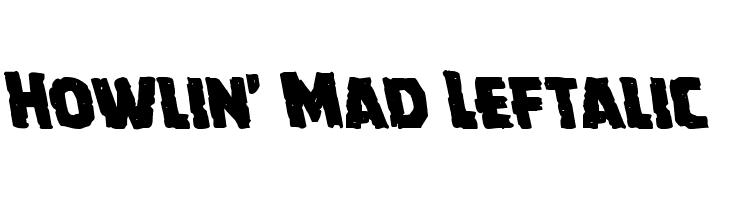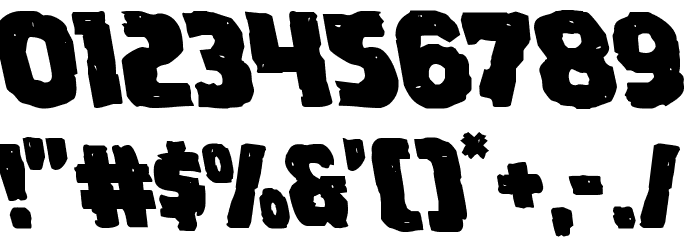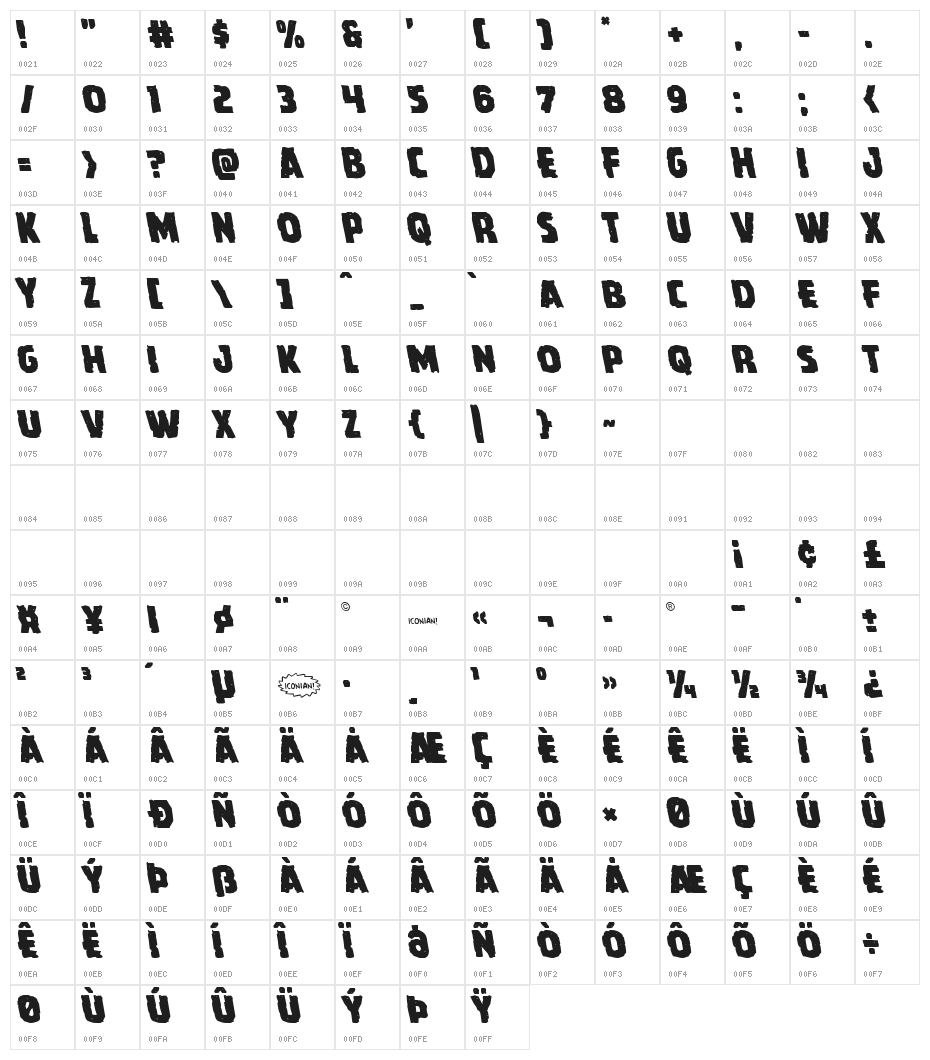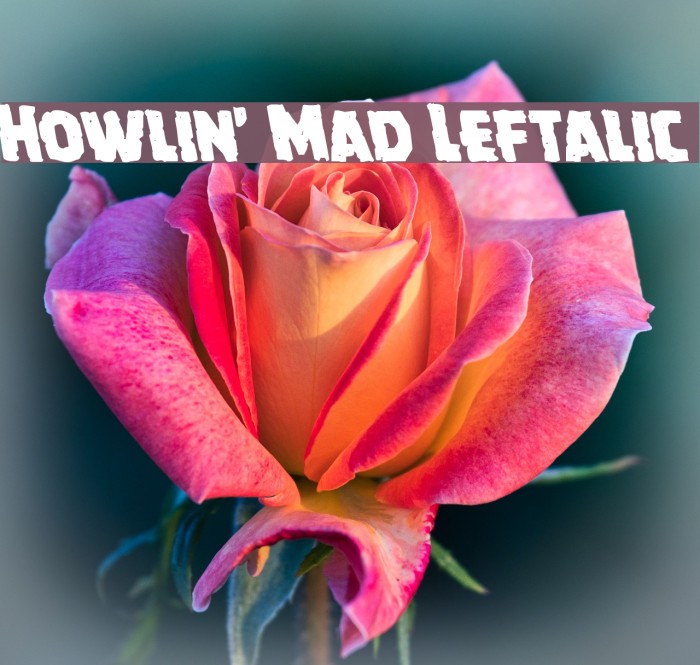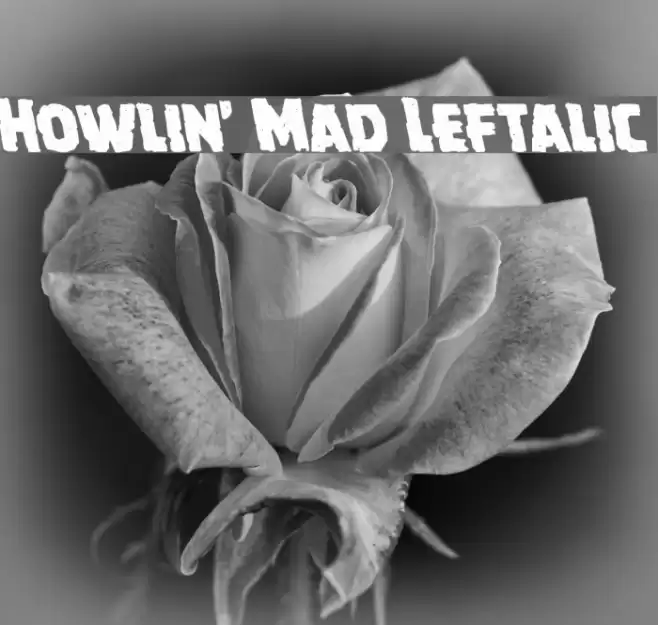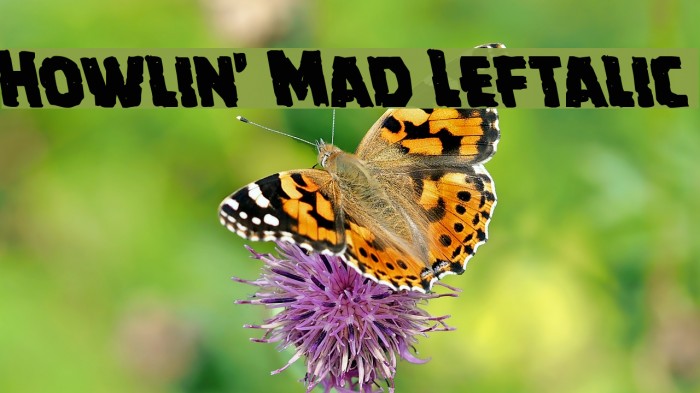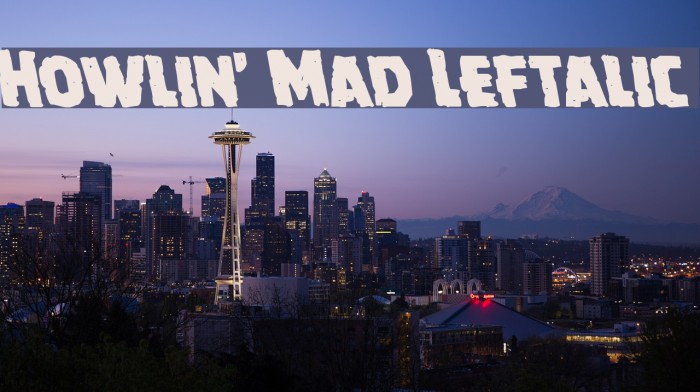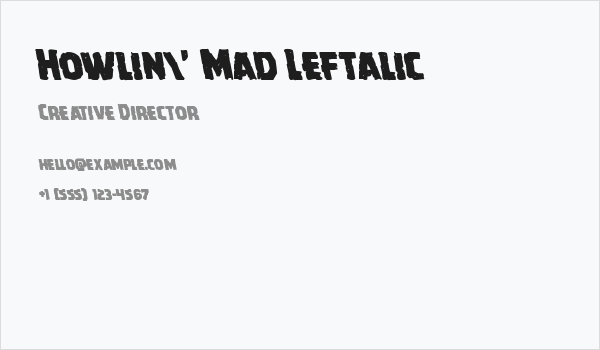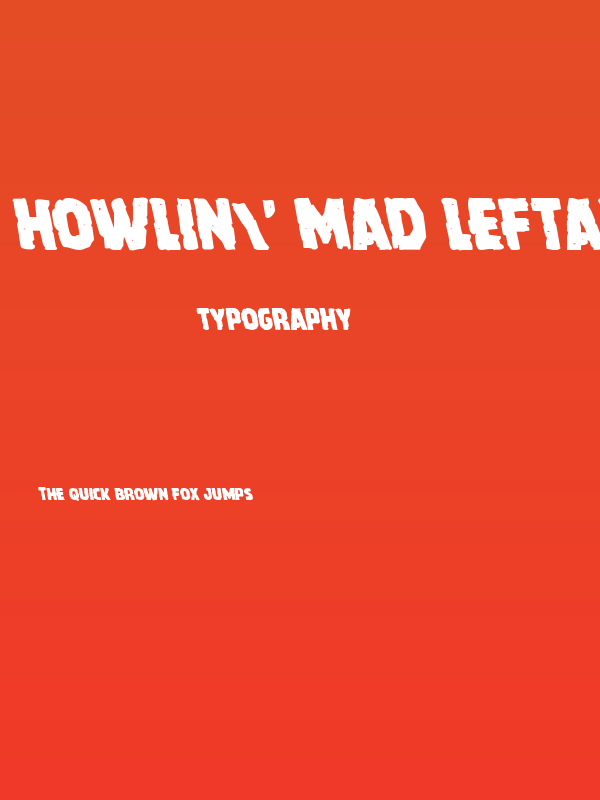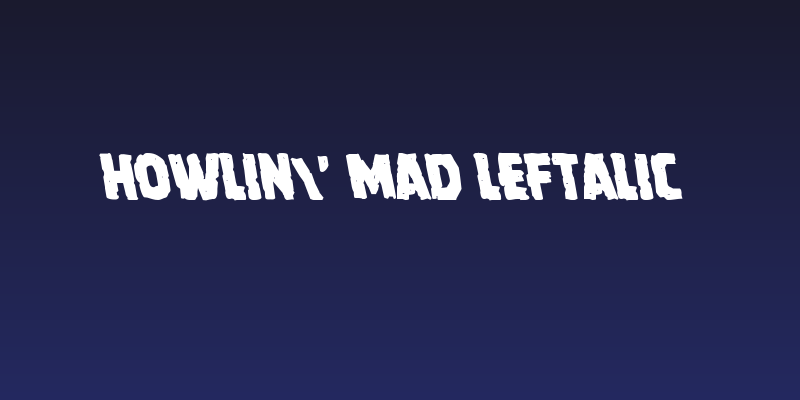
Howlin' Mad Leftalic Font
Howlin' Mad Leftalic Description
This font features a bold and rugged style, characterized by its distressed and uneven edges that give it a raw, hand-crafted appearance. The letters are thick and heavy, providing a strong visual impact. The irregularities in the letterforms suggest a sense of movement and energy, making it ideal for projects that require a dynamic and edgy look. The uppercase and lowercase letters maintain a consistent weight, while the numbers and special characters follow the same bold and textured design. This font is particularly suitable for creative and artistic projects that aim to convey a sense of rebellion or nonconformity.
| Proposed Projects | Ideal for posters, album covers, branding for edgy products, and any design requiring a bold statement. |